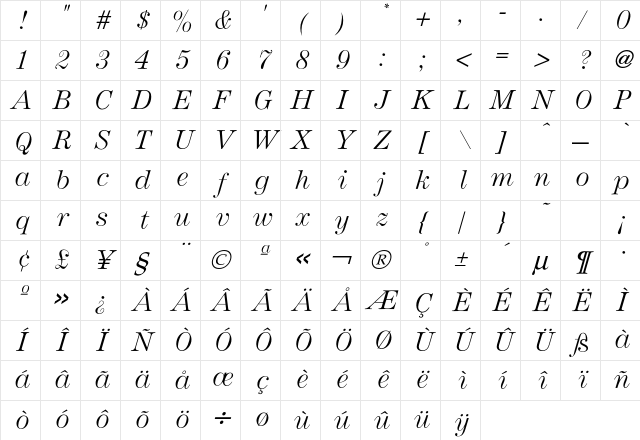
Andrich MinervaItalic Free Font
Andrich MinervaItalic
Design Context for Andrich
Andrich is a composed and adaptable typeface that performs quietly and consistently across a wide range of design contexts. The slanted form adds forward momentum and visual energy.
Pro Tip: Use Andrich for emphasis, pull quotes, and subheadings where its slanted energy can add rhythm to the layout.